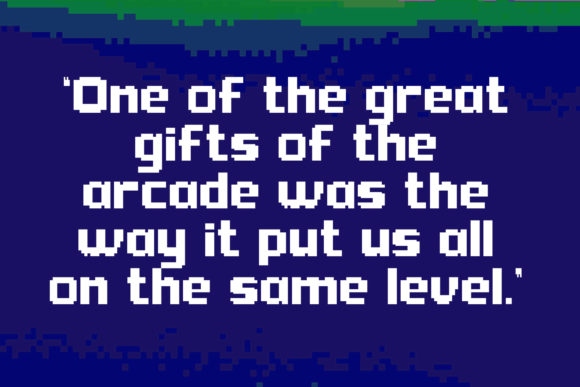
Step Back into the Arcade with a Blast from the Past
Have you ever found yourself reminiscing over the good old days of classic video games? Maybe it was the simple yet addictive gameplay of Pac-Man or the nostalgic charm of Donkey Kong. Whatever it was, there’s something special about stepping back into the world of retro gaming. For designers, this nostalgia can be a powerful tool to tap into, and that’s where the Arcade Font comes in – a pixelated font that’s sure to transport your audience back to a bygone era.
With its block letters and pixelated design, the Arcade Font is the perfect way to add a touch of retro charm to your next design project. Whether you’re working on a gaming-themed website, a retro-style advertisement, or simply want to add some nostalgic flair to your brand, this font is sure to deliver. Its versatility and ease of use make it a valuable addition to any designer’s toolkit, and its nostalgic appeal is sure to leave a lasting impression on your audience.
Key Features of Arcade Font
- Font Size: The font comes in multiple sizes, including 8-bit, 16-bit, and 32-bit, allowing for a range of design options.
- Resolution: Arcade Font is designed for use at high resolutions, making it ideal for digital displays and screens with high pixel densities.
- Unique Characteristics: The font features a distinctive pixel art aesthetic, with bold lines and pixel-perfect details that evoke the classic look of old-school video games.
Designer Review: Arcade Font
Overall, I’d say the Arcade Font is a fun and quirky addition to any design project. ✨ It’s a great choice for those looking for a nostalgic, retro vibe.
- Highly customizable: You can adjust the font’s width, height, and spacing to suit your needs.
- Nostalgic appeal: The Arcade Font captures the essence of classic arcade games, making it perfect for projects that need a retro touch.
- Easy to read: Despite its pixelated appearance, the font is surprisingly legible, even at small sizes.
- Limited language support: The Arcade Font may not be suitable for projects that require extensive language support.
- Not ideal for body text: While the font works well for titles and headings, it may not be the best choice for large blocks of body text.
- May not be compatible with all systems: As a pixel font, the Arcade Font may not render correctly on all operating systems or devices.
Overall, I think the Arcade Font is a great choice for designers who want to add a touch of nostalgia to their projects. While it has its limitations, it’s a fun and versatile font that can add some visual interest to your designs.
For the most out of Arcade Font, use it for retro-themed designs, video game-inspired graphics, or to add a touch of nostalgia to your project. You can also use it for titles, headings, or short paragraphs where you want to add a playful touch.